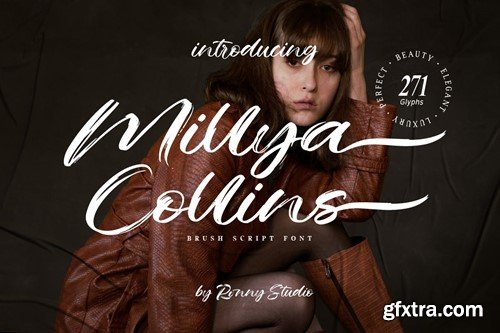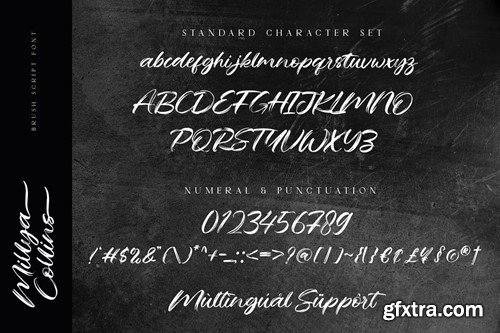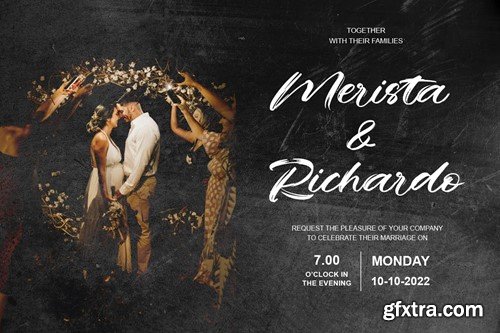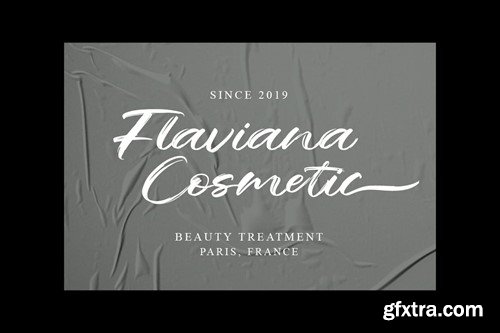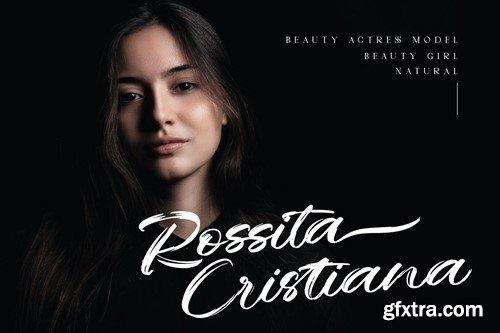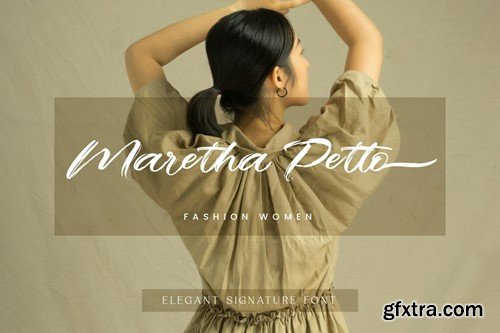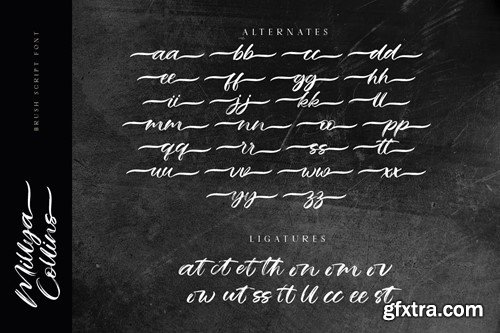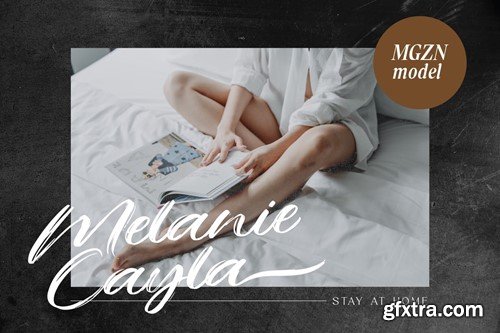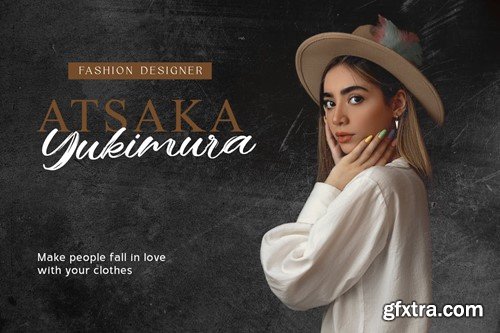
Millya Collins - Brush Script Font
Millya Collins Font is created with a natural Brush script with a fresh modern script providing a stylish script guaranteed to add eye-catching appeal to your logo designs, brand imagery, quotes, product packaging, merchandise & social media posts
Features :
• Uppercase & Lowercase
• numbers & punctuation
• Alternate & Ligature
• Multilingual